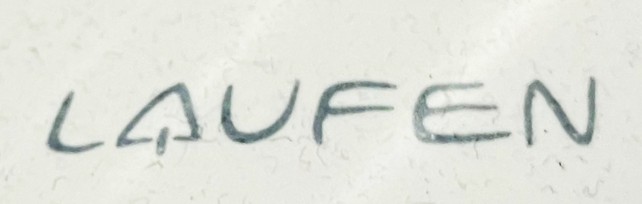
• Inspiration from bathroom.
How can you best describe that this is inspired by a bathroom?
@Jeyco I once noticed brand name of a company making bathroom eqipment written in similar kind of font, but it was more fluent and it was slanted. As I looked, they seem no longer using that font.
Looks pretty!
Thank you Elmoyenique, I think I should have made the strokes thiner, or somehow more variable. Maybe I will get back to it in lower case.
Keep going, follow the feeling.
Can you add a normal uppercase “A”?